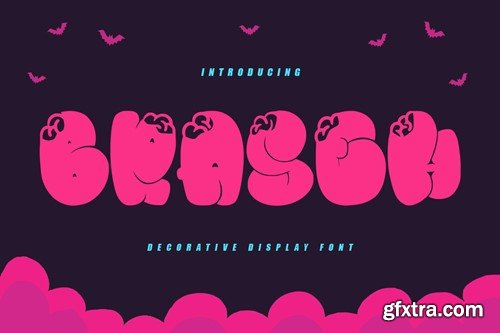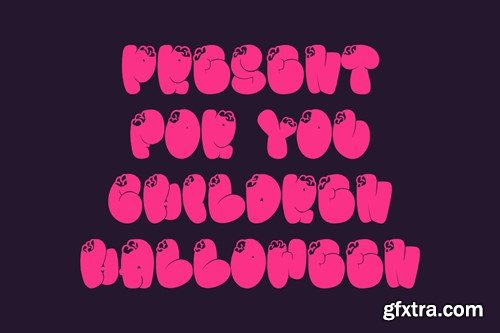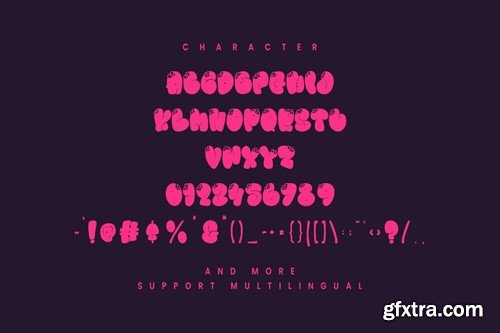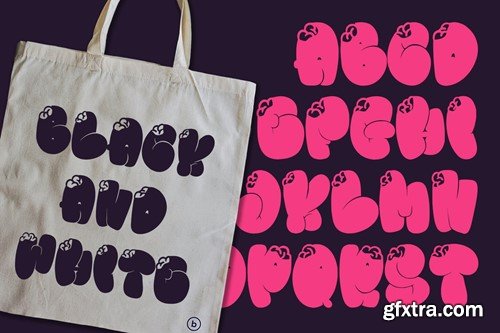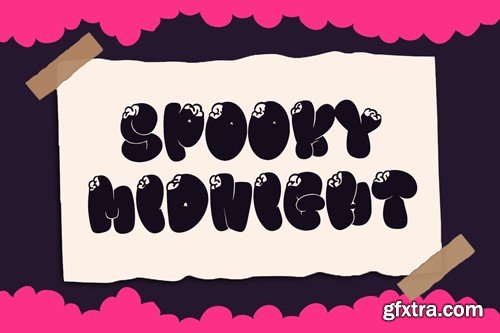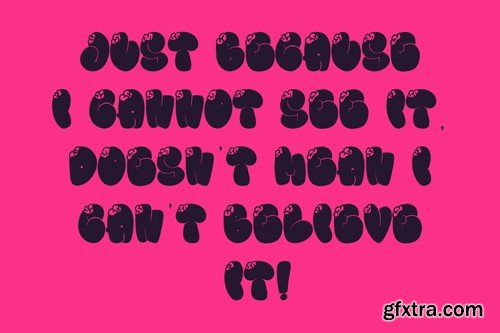
Braseh Decorative Display Font
Braseh decorative graffiti display font. Bold stroke and fun character. To give you an extra creative work Braseh decorative graffiti display font support multilingual language. This font is good for logo design, Social media, Movie Titles, Books Titles, a short text even a long text letter and good for your secondary text font with script or serif. Make a stunning work with Braseh decorative graffiti display font. What you get: Cheers, Maulana Creative